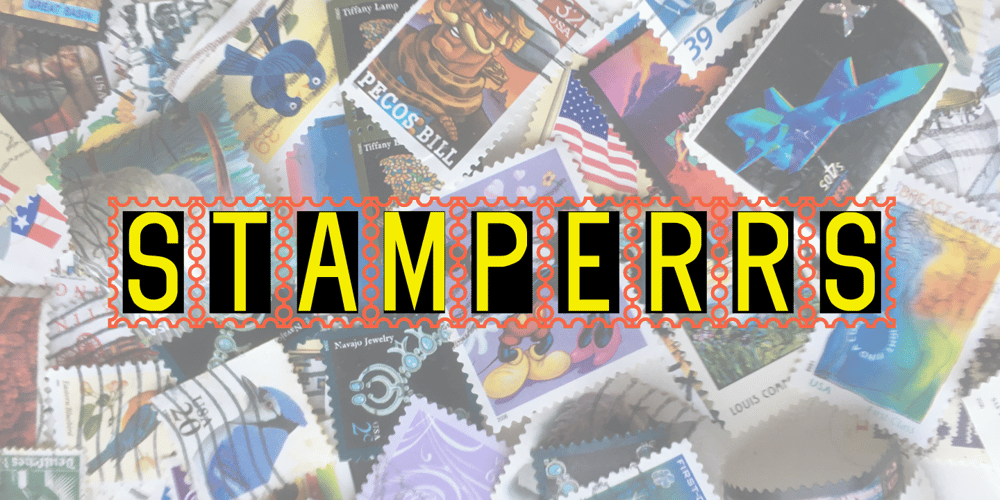
Stamper RS Font Family was designed by Robert Schenk and published by Ingrimayne Type. Stamper RS contains 1 styles and family package options. In StamperRS all the letters are on little stamps. The upper-case letters are have black letters on white stamps and the lower-case letters have white letters on black stamps. The character set is limited. The letters are from the typeface Myhota, also by Ingrimayne Type. StamperRS was first released in 1995 with the name Stamper.